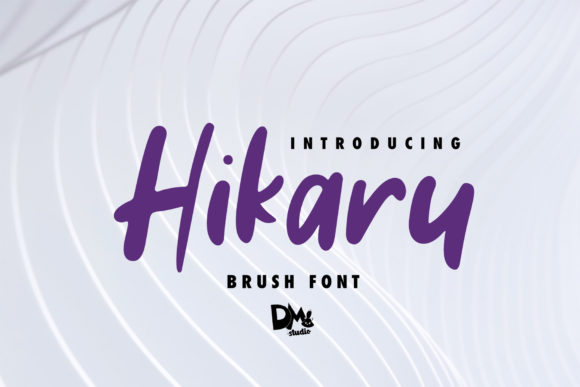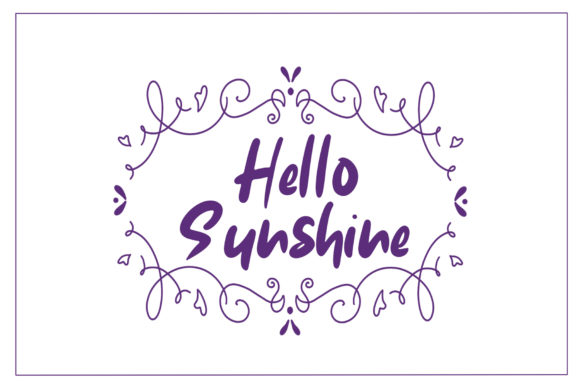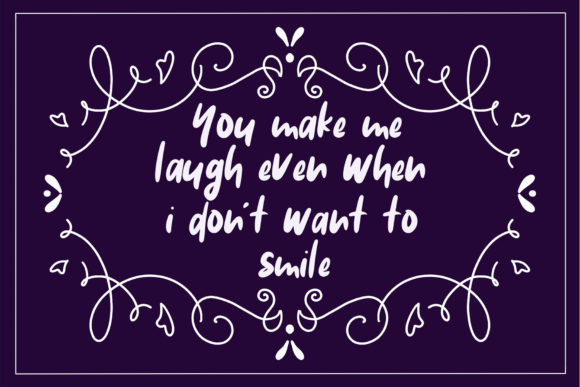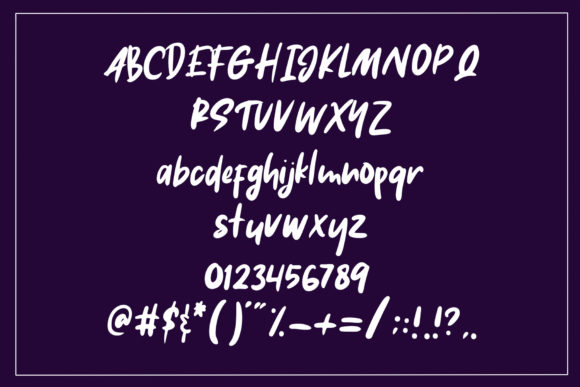
HomeScript FontsHikaru Font Script Fonts Hikaru Font FacebookXPinterestWhatsApp Hikaru Font Poster 2 Hikaru Font Poster 3 Hikaru Font Poster 4 About Hikaru Font Hikaru is a cool and bold handwritten font with a beautiful feel. Get inspired by its unique charm! DOWNLOAD NOW People also explored Joaquin Font Neo Cybern Font California Font Ayaha Gisticky Font Tycho Font Sticknote Font Sampestera Font Hellow Font 337 0 TagsHikaru Font Previous articlePaisley FontNext articleThe Breachery Script Font LEAVE A REPLY Cancel reply Comment: Please enter your comment! Name:* Please enter your name here Email:* You have entered an incorrect email address! Please enter your email address here Website: Save my name, email, and website in this browser for the next time I comment. Personal Use Free Tide Personal Use Free Read more about this font Eric”s Personal Use Free Read more about this font Astagina Signature Personal Use Free Read more about this font Short Message Personal Use Free Read more about this font BLOG Best Fonts for YouTube Videos: Make Your Thumbnails Stand Out Best Fonts for YouTube Videos: Make Your Thumbnails Stand Out Choosing the right font can make a massive difference in how your YouTube videos perform.... Top 7 Google Fonts Alternatives for Faster and Privacy-Friendly Web Design (2025) To increase your work productivity, choose the most readable fonts. Free Fonts Risk: Why Free Fonts Can Be Dangerous for Designers